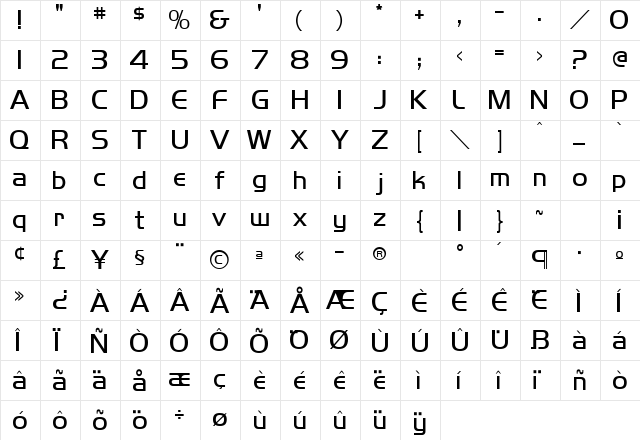
HancockParkLightLaser Park Light Laser
Design Context for HancockParkLightLaser Typeface
HancockParkLightLaser offers clean, dependable letterforms without strong stylistic allegiance, making it a practical choice for designers who need flexibility. The delicate stroke weight brings airiness and refinement to layouts.
Pro Tip: Pair HancockParkLightLaser with a font of contrasting weight or personality to build a more expressive typographic hierarchy.